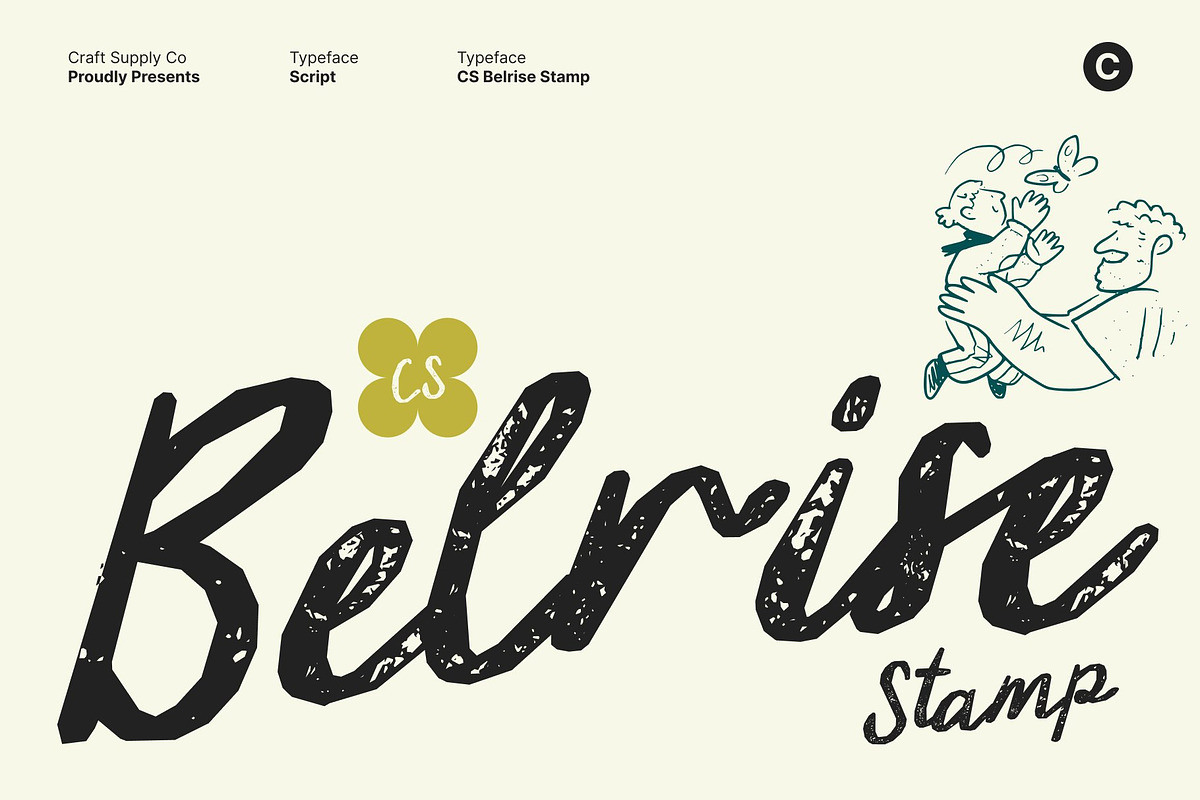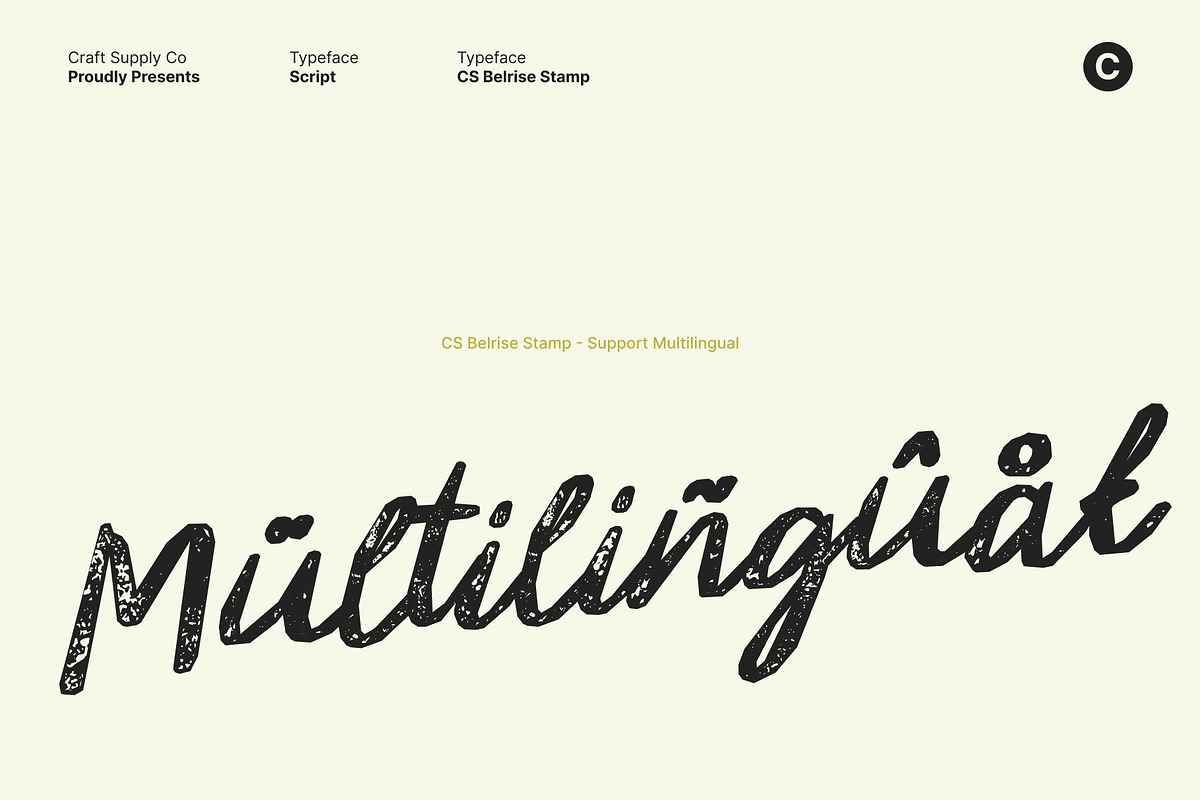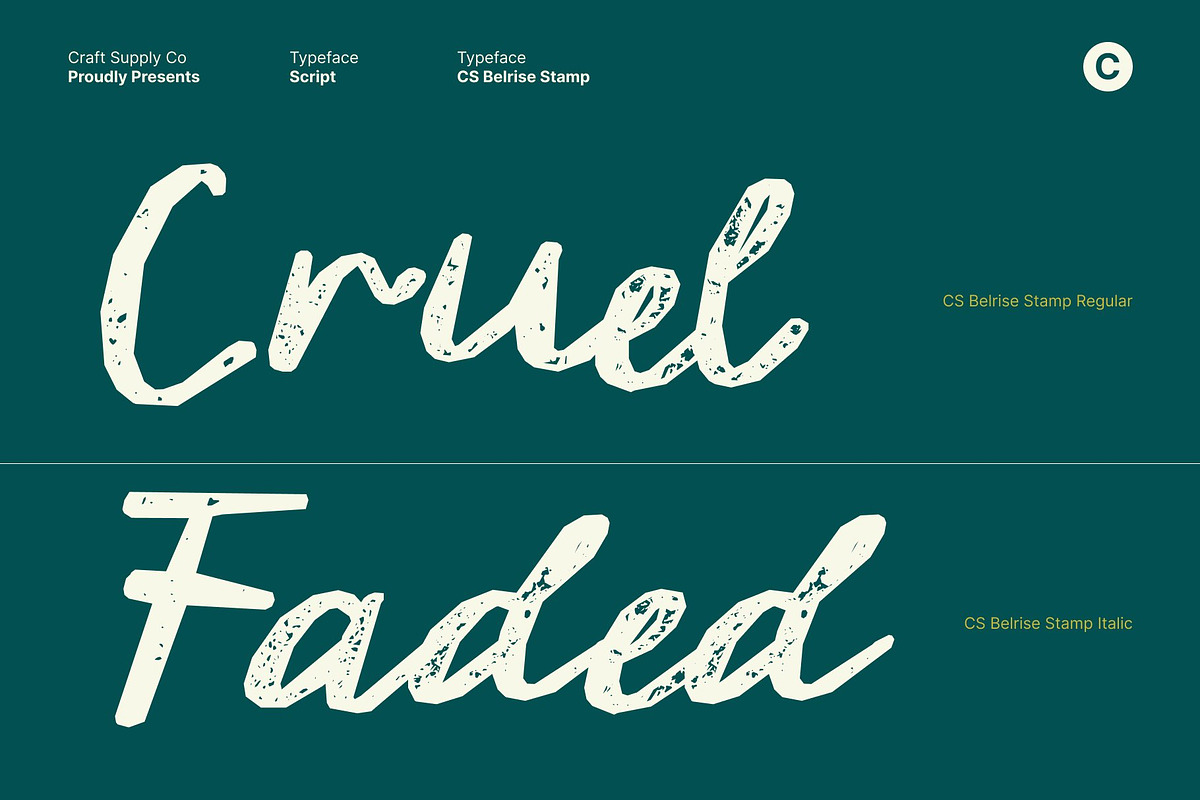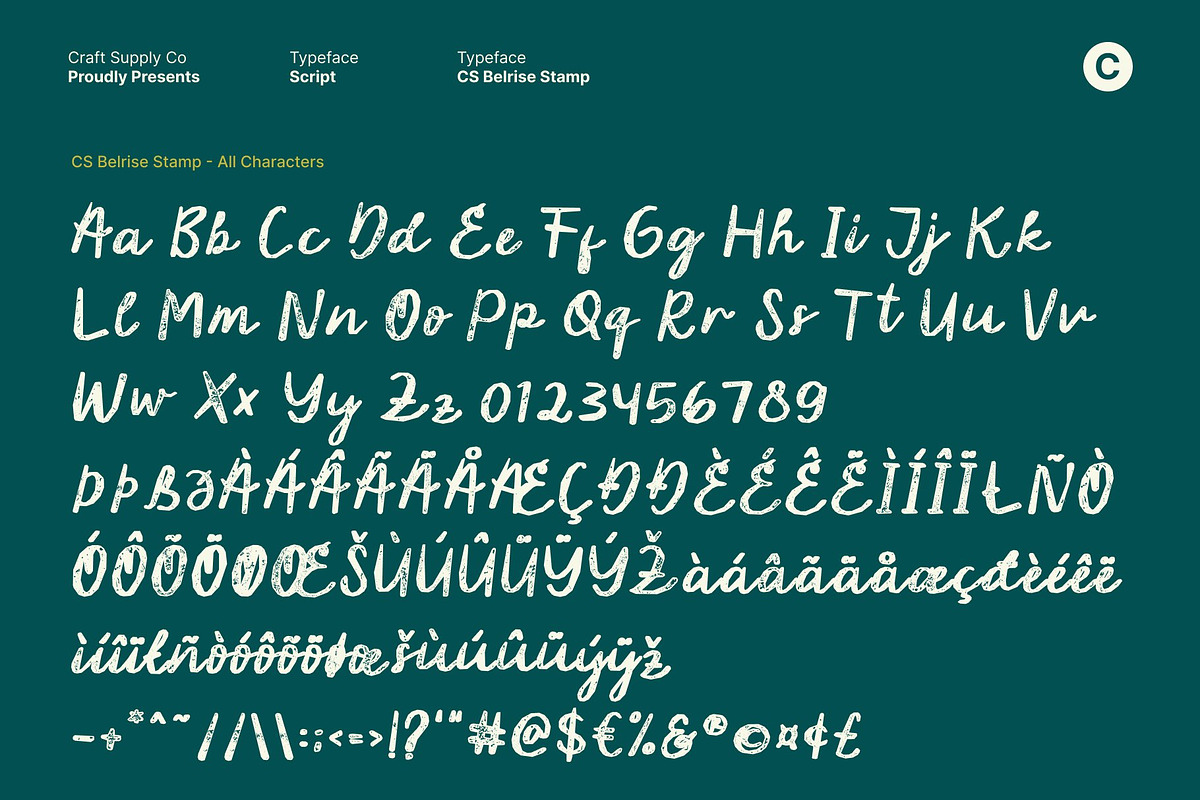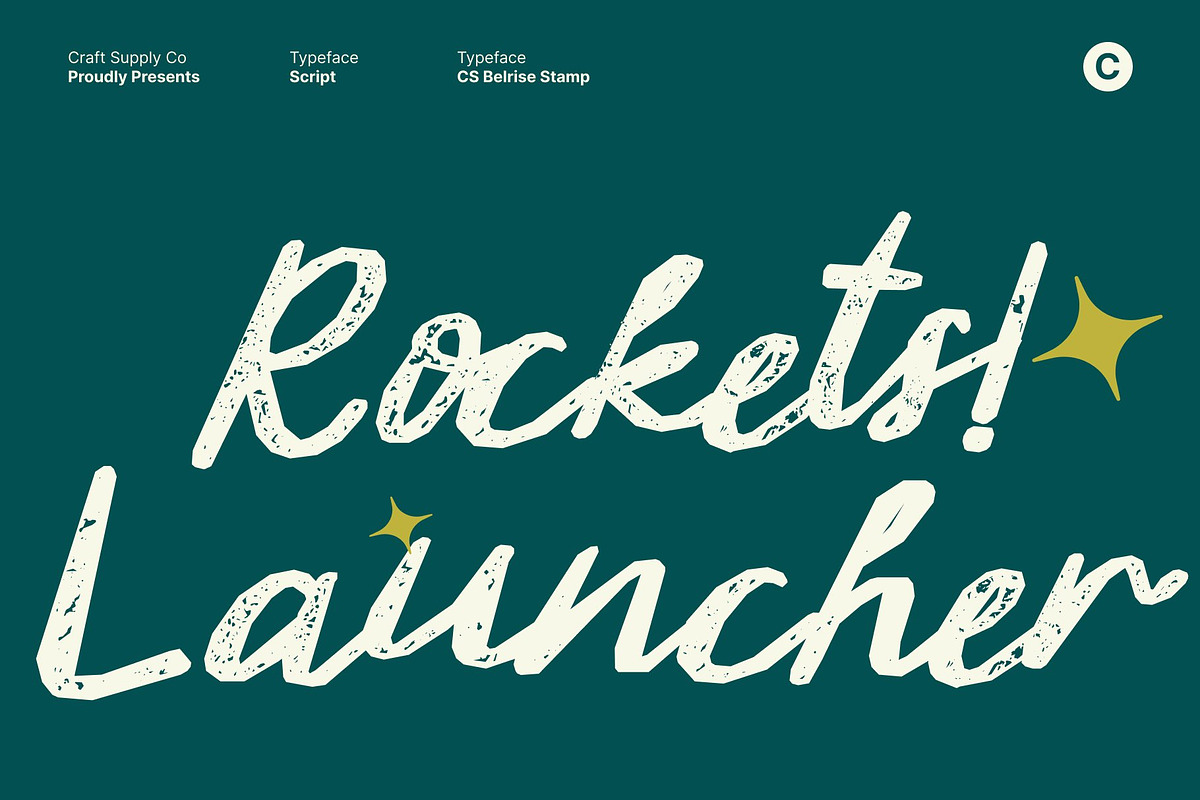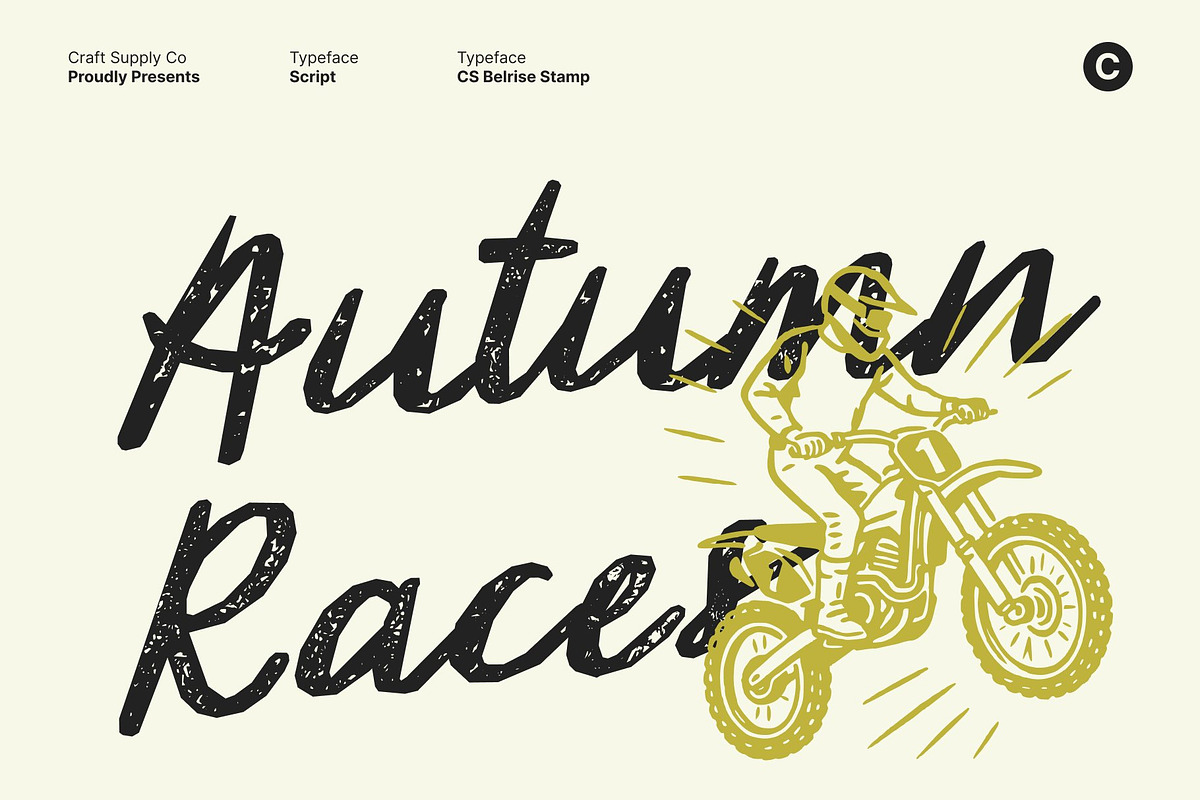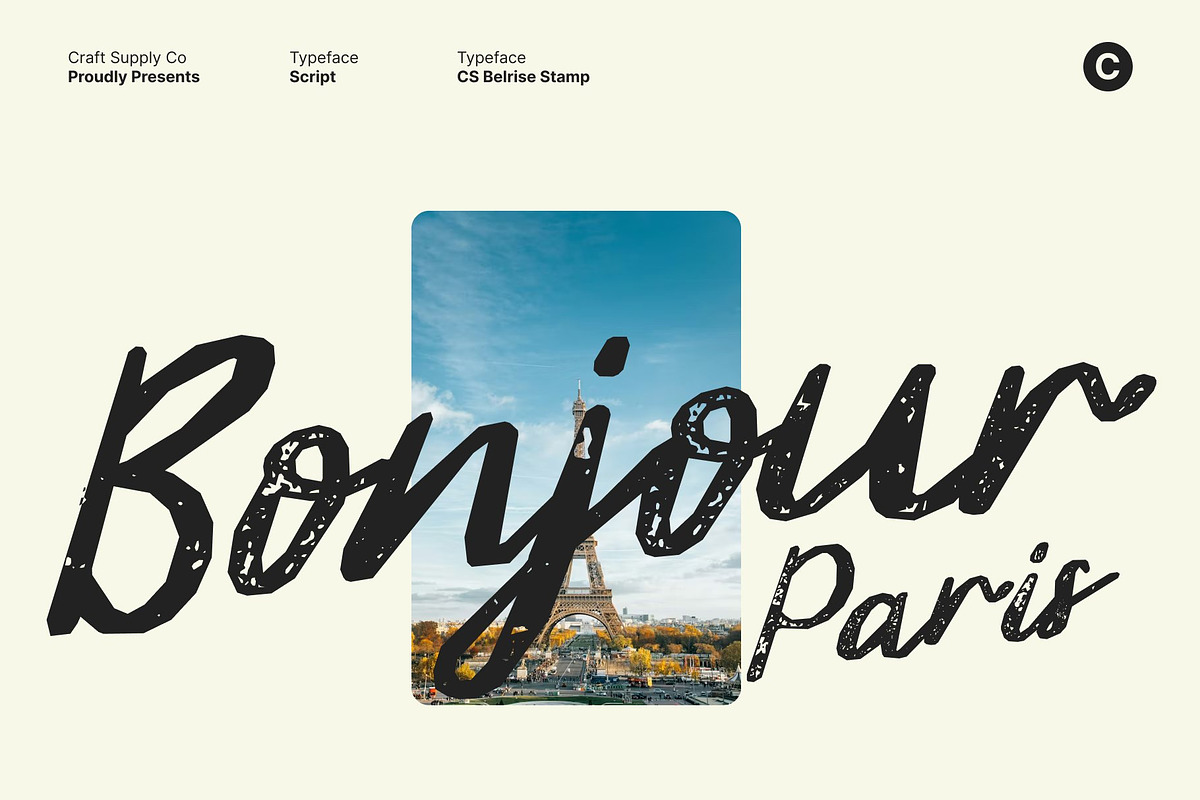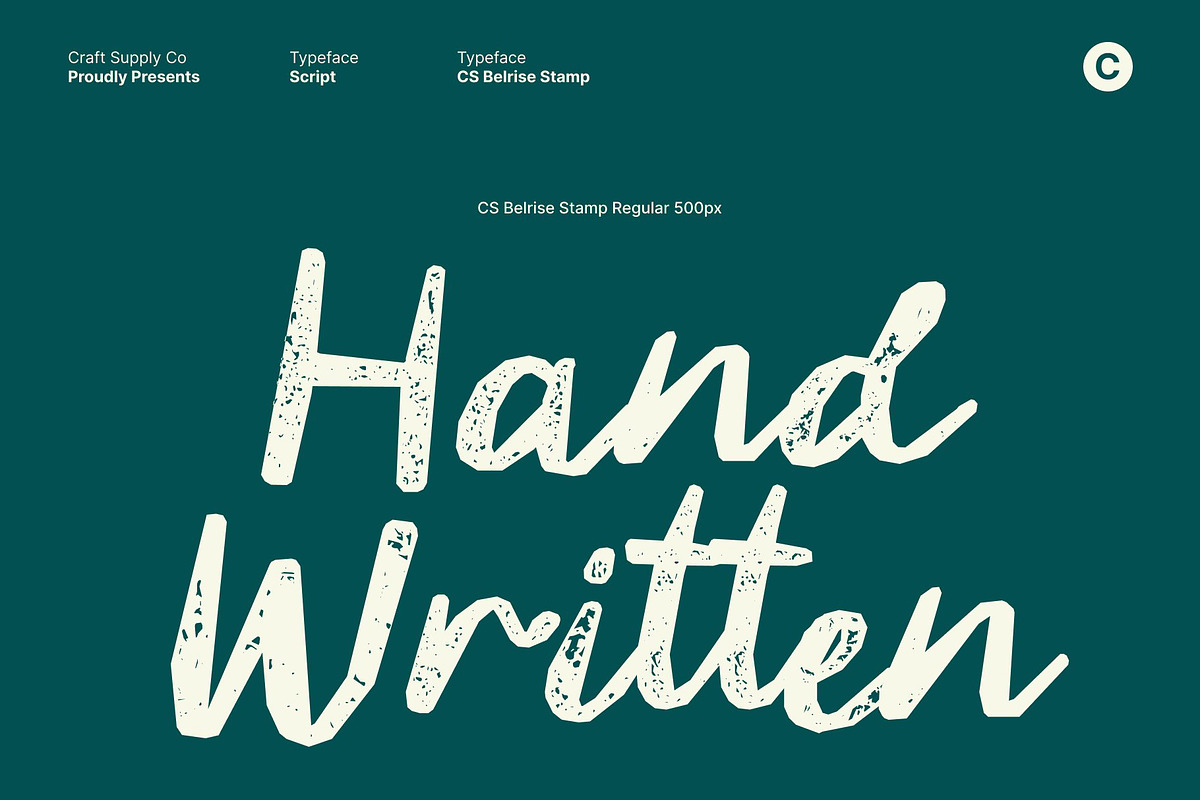
CS Belrise Stamp
CS Belrise Stamp – Beauty Handwriting Script with Mediterranean Grace
Fluid Strokes with Handwritten Elegance This is a beauty handwriting script font crafted with soft, fluid strokes that bring graceful handwritten charm to every design. Each letter flows naturally, creating a warm and expressive rhythm. Enhanced with a stamp effect, the font gains a subtle textured finish, giving its elegant forms an aged, hand-pressed character that feels artistic and timeless.
Mediterranean Elegance with Vintage Texture Inspired by the serene beauty of Mediterranean handwriting, this font carries a gentle, sun-kissed personality. Flowing curves and airy movement evoke romance and effortless luxury, while the stamped texture introduces organic imperfections reminiscent of traditional print and handcrafted lettering. This blend creates a script that feels both refined and authentically old-world.
Perfect for Branding and Luxury Packaging This font excels in branding projects that require a personal yet premium touch. The combination of elegant script strokes and vintage stamped texture adds sophistication to logos, product labels, and luxury packaging. Ideal for fashion, beauty, artisan goods, and lifestyle brands, it communicates authenticity, craftsmanship, and understated luxury.
Ideal for Wedding Invitations and Romantic Designs With its romantic flow and textured softness, this font shines in wedding invitations, event stationery, and heartfelt greeting cards. The stamp effect enhances its emotional warmth, ensuring every message feels intimate, meaningful, and beautifully crafted.
CS Belrise Stamp Regular
CS Belrise Stamp Italic